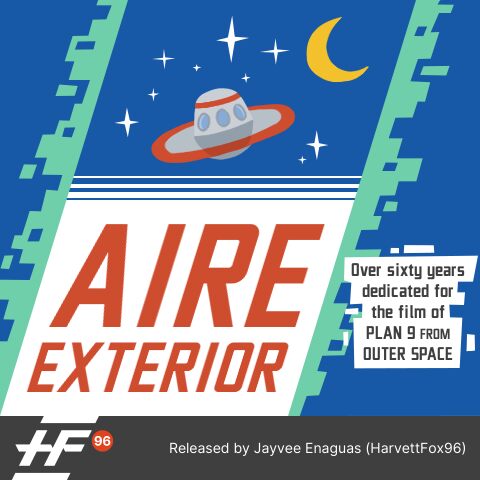
Aire Exterior
Aire Exterior (translated to Outer Air in English) is a geometric sans serif typeface based on the title screen of the 1959 film Plan 9 from Outer Space, superseded from 2012 erroneous design Aero Matics, created with libre/free font editor software FontForge.
- Enlarged a (few letters with) lower diacritic.
- Horizontally stretched in a bit in all T letter related characters and Kazakh tenge (₸) sign.
- Loosen side bearings in a bit in all characters.
- Redesigned Ukranian hryvnia (₴) sign.
- Tweaked some other letter characters.
- Separated and updated two other kerning classes.